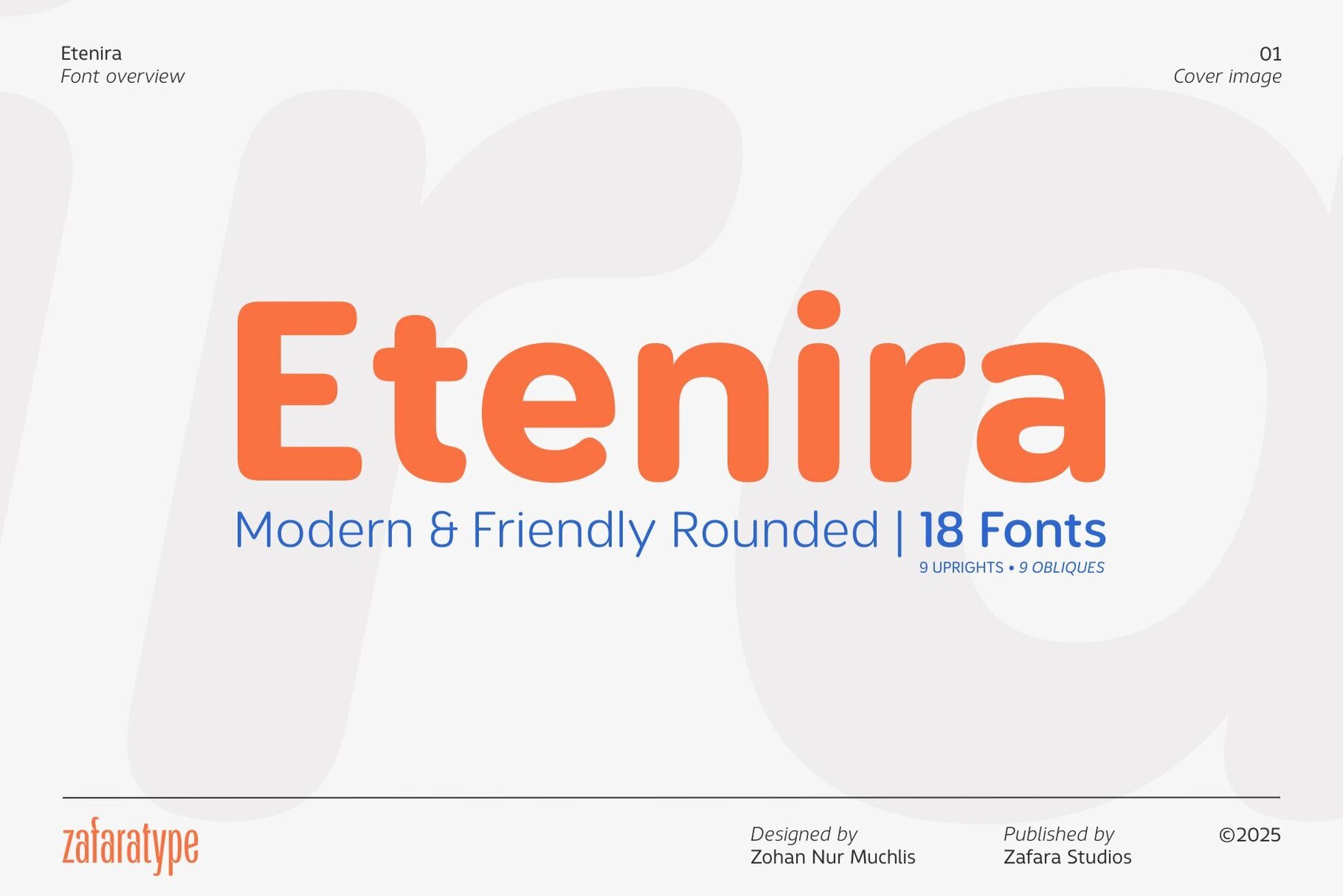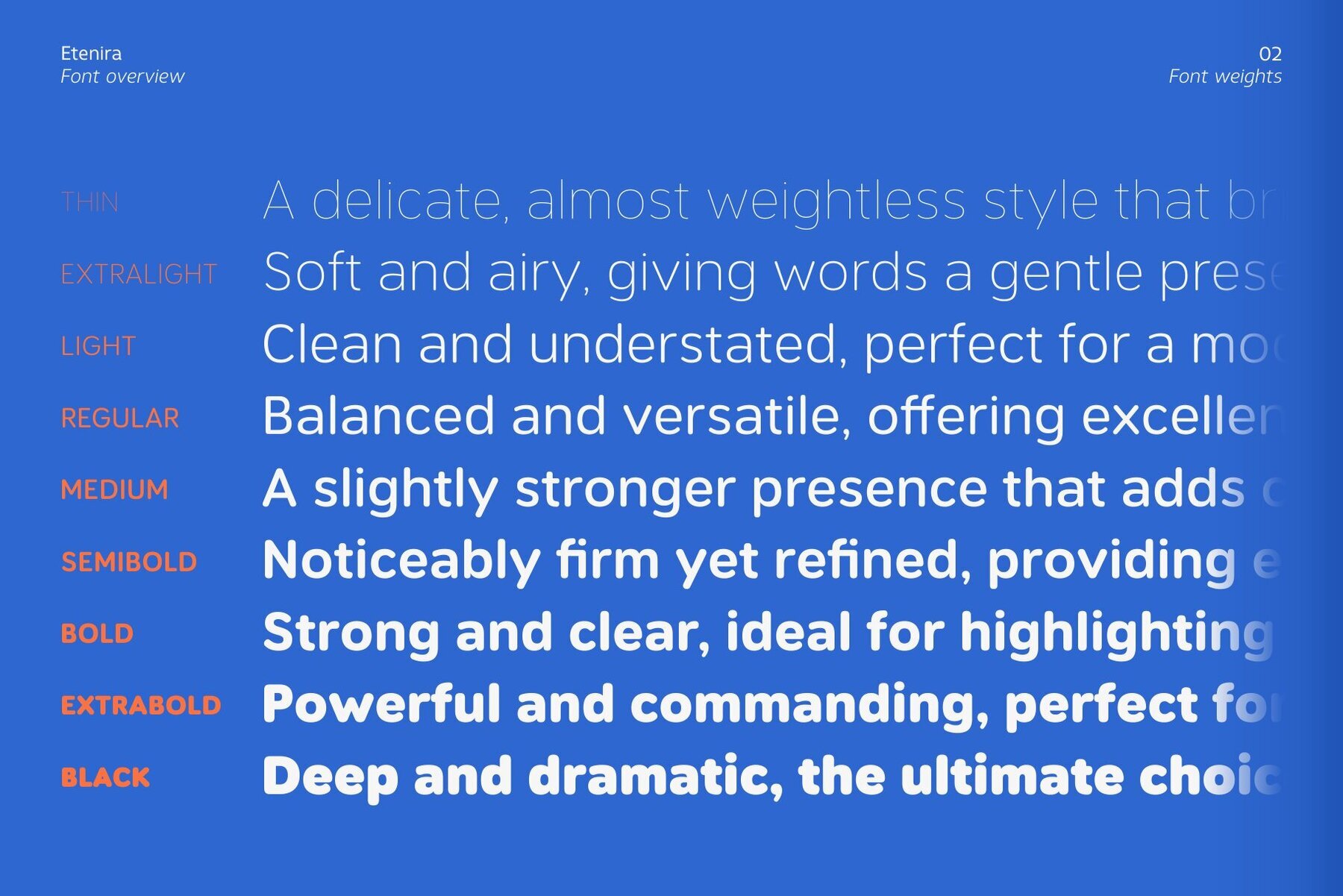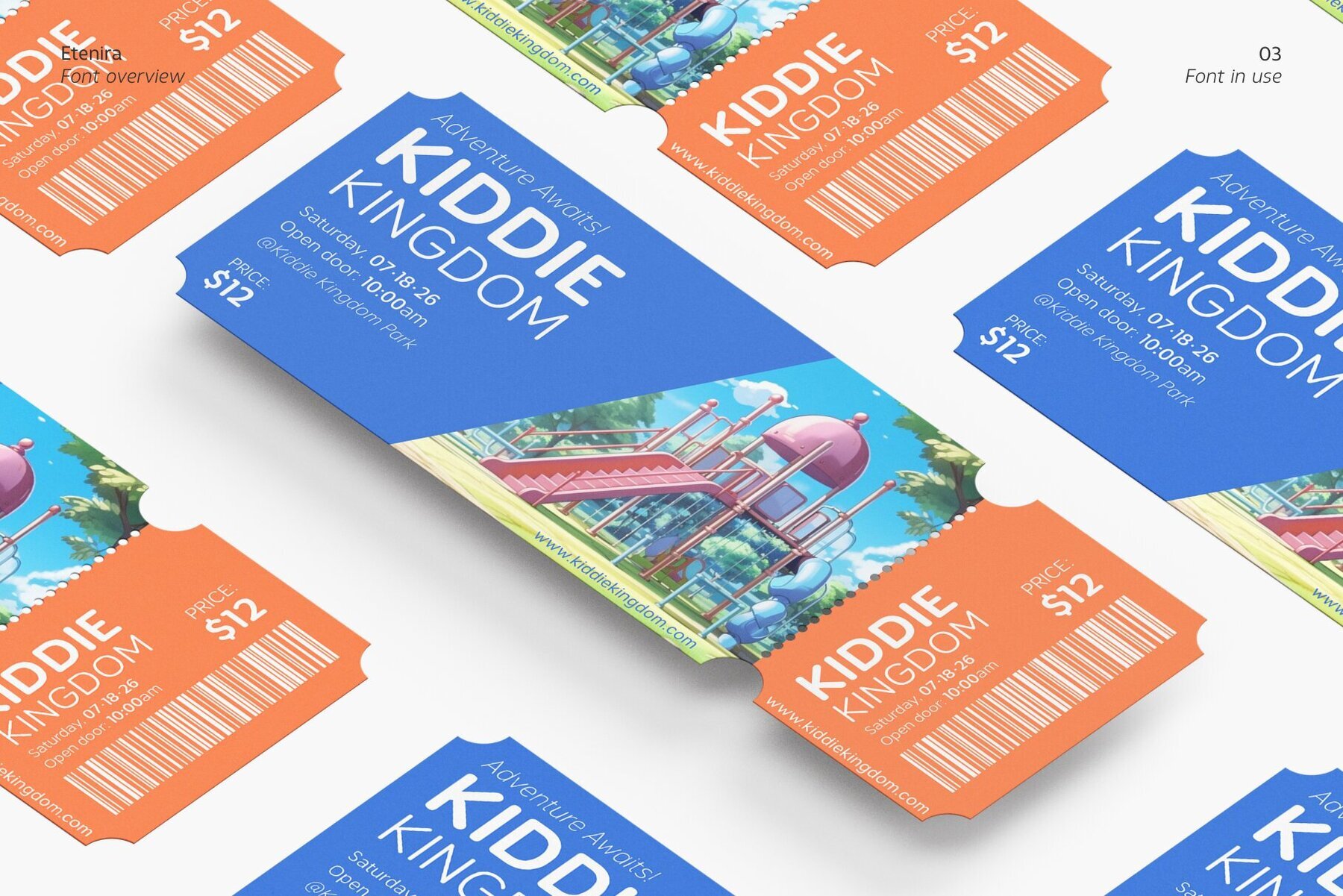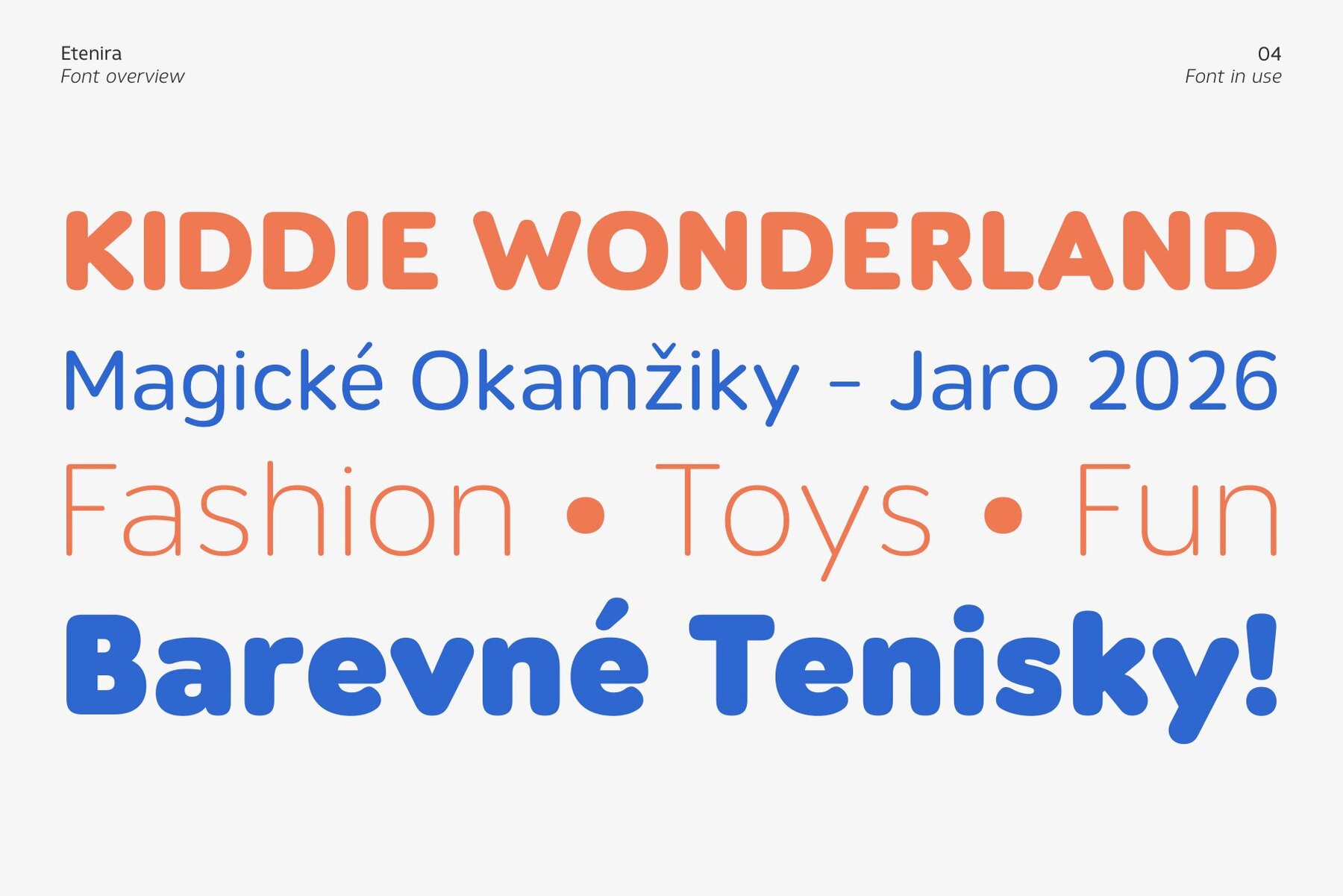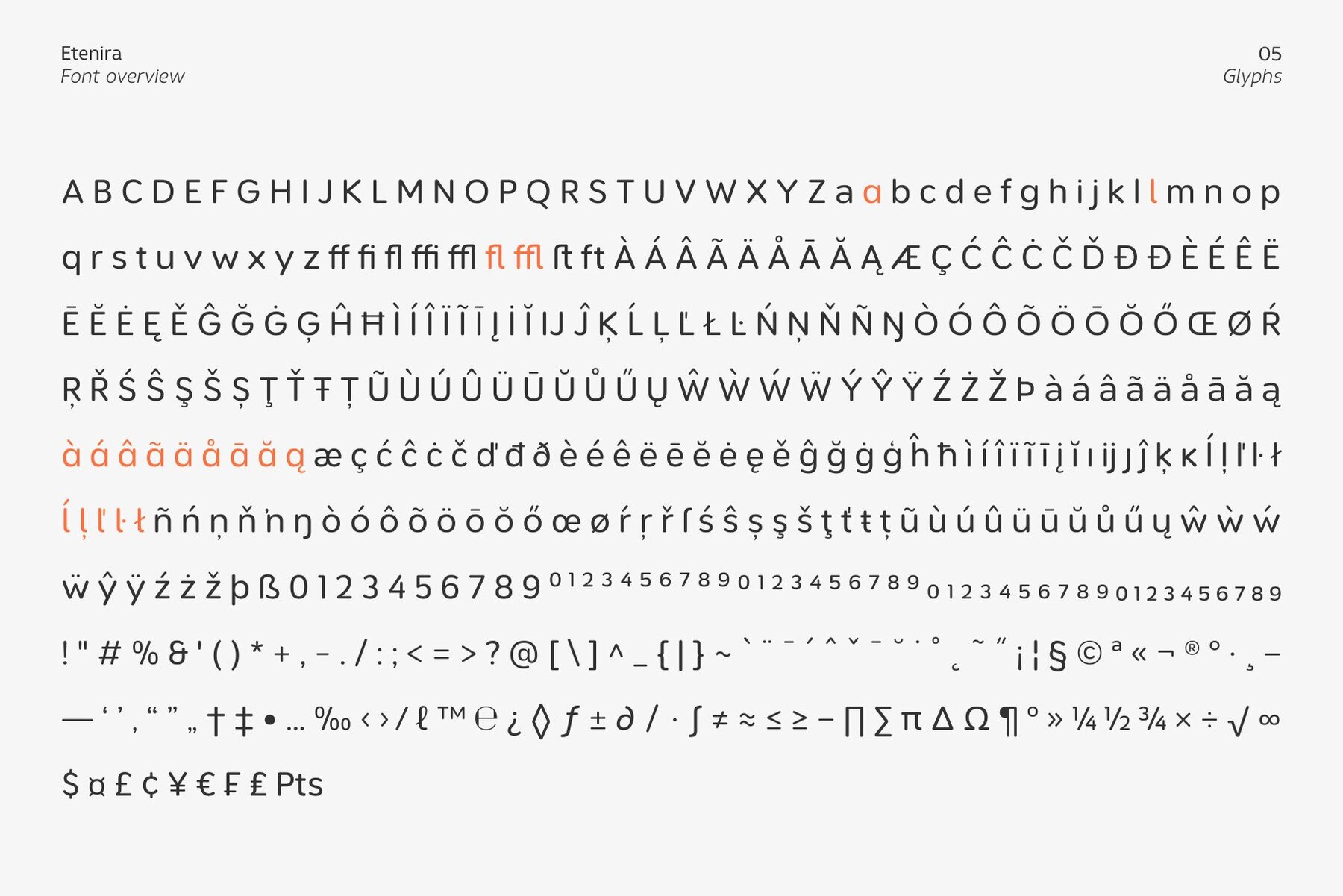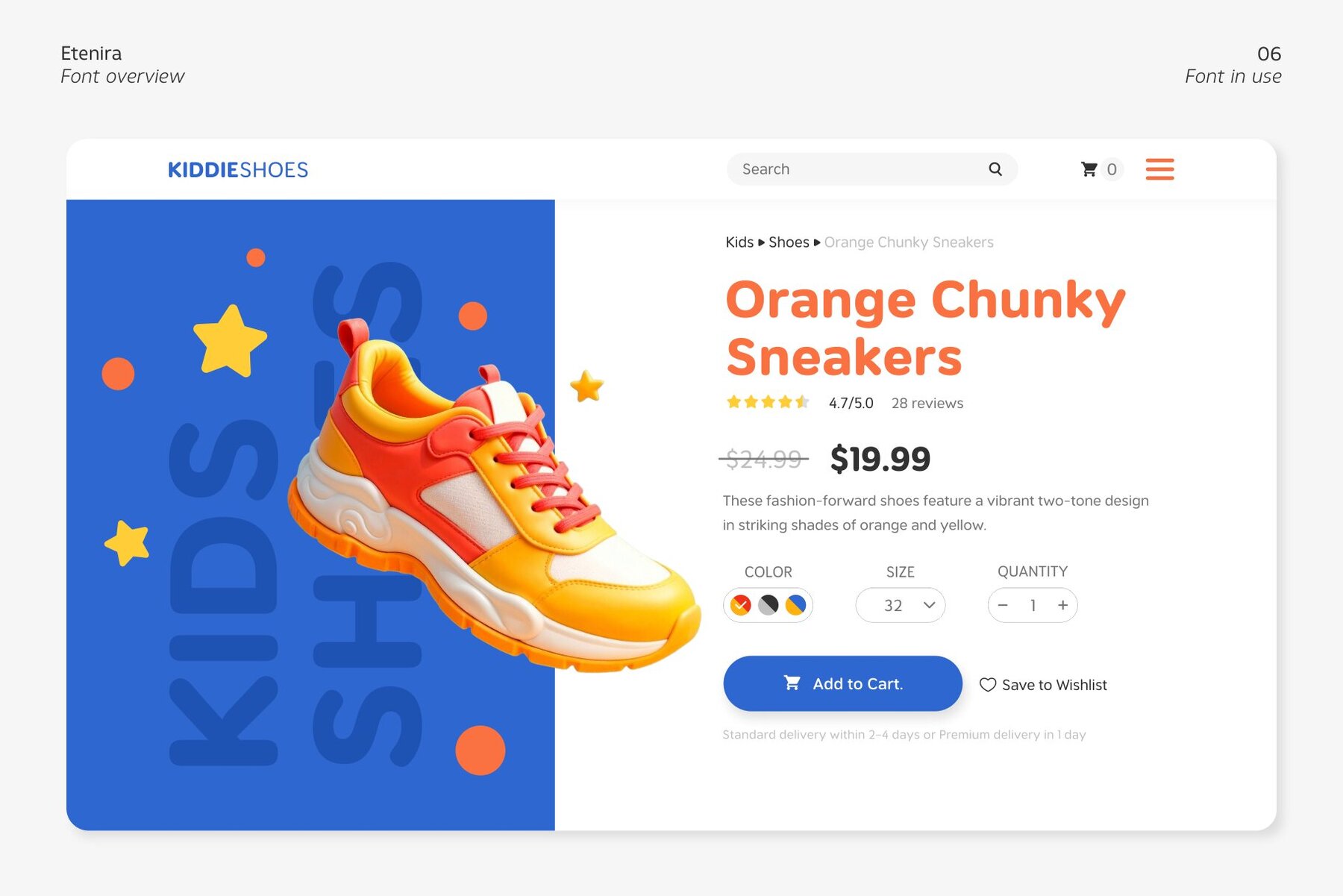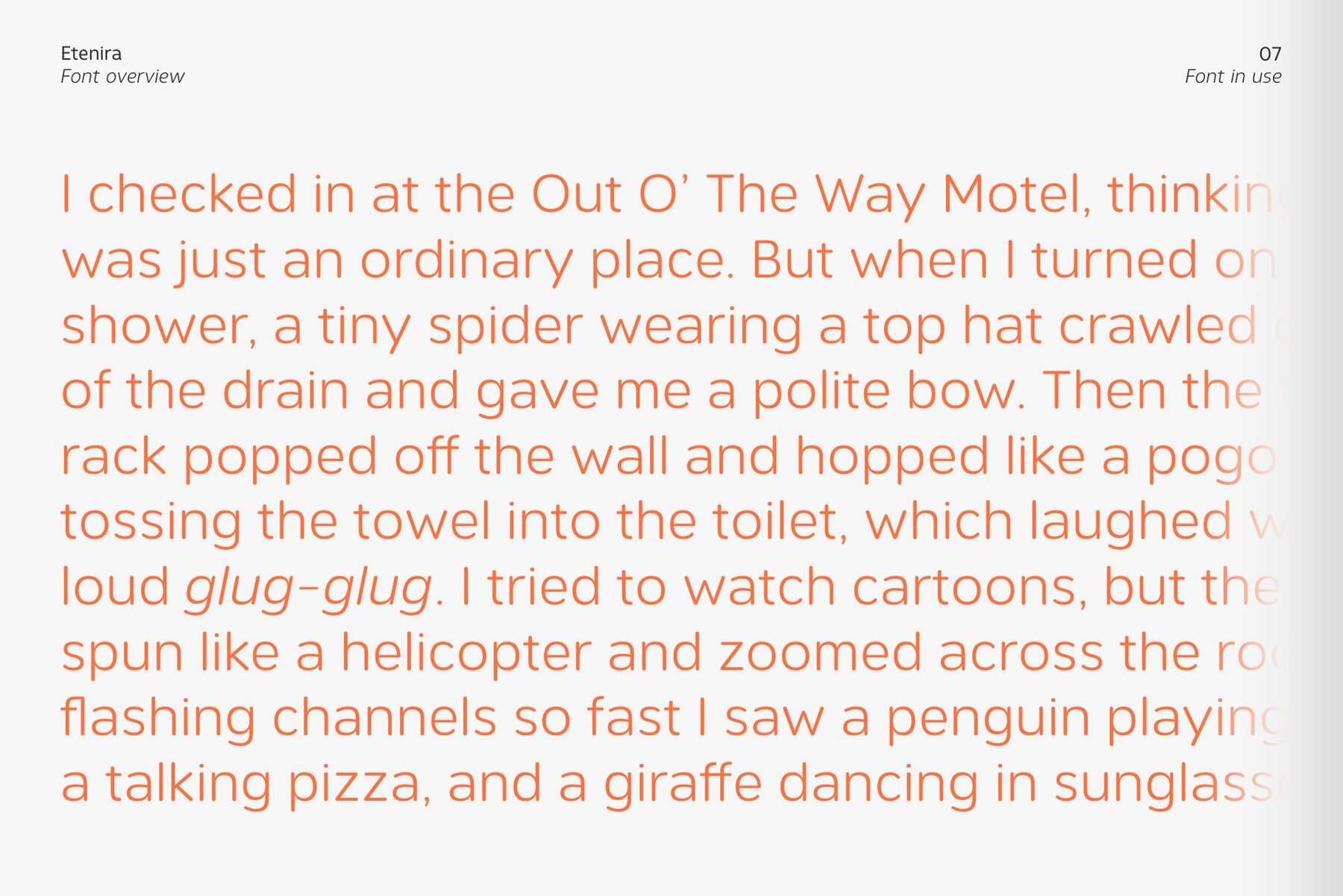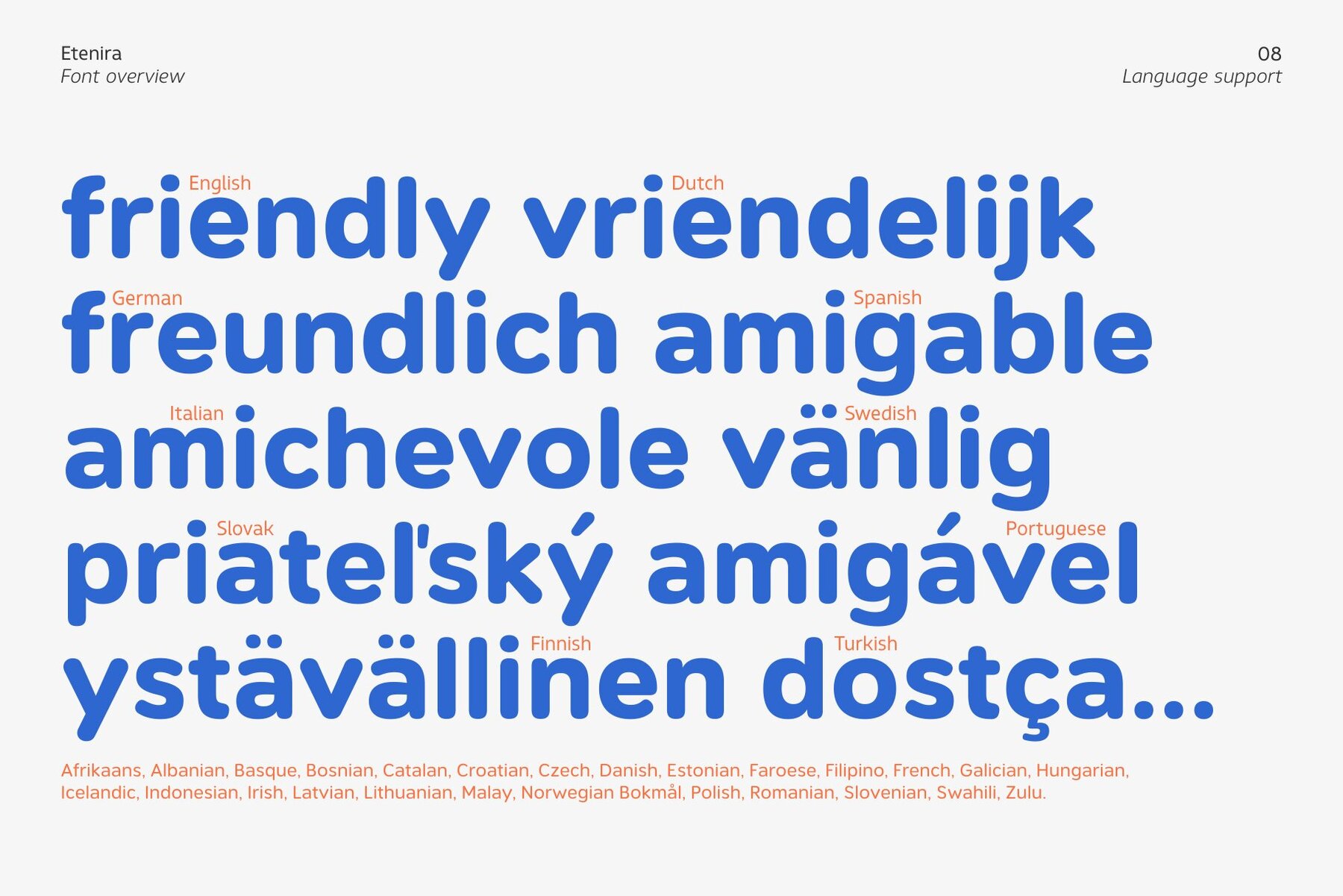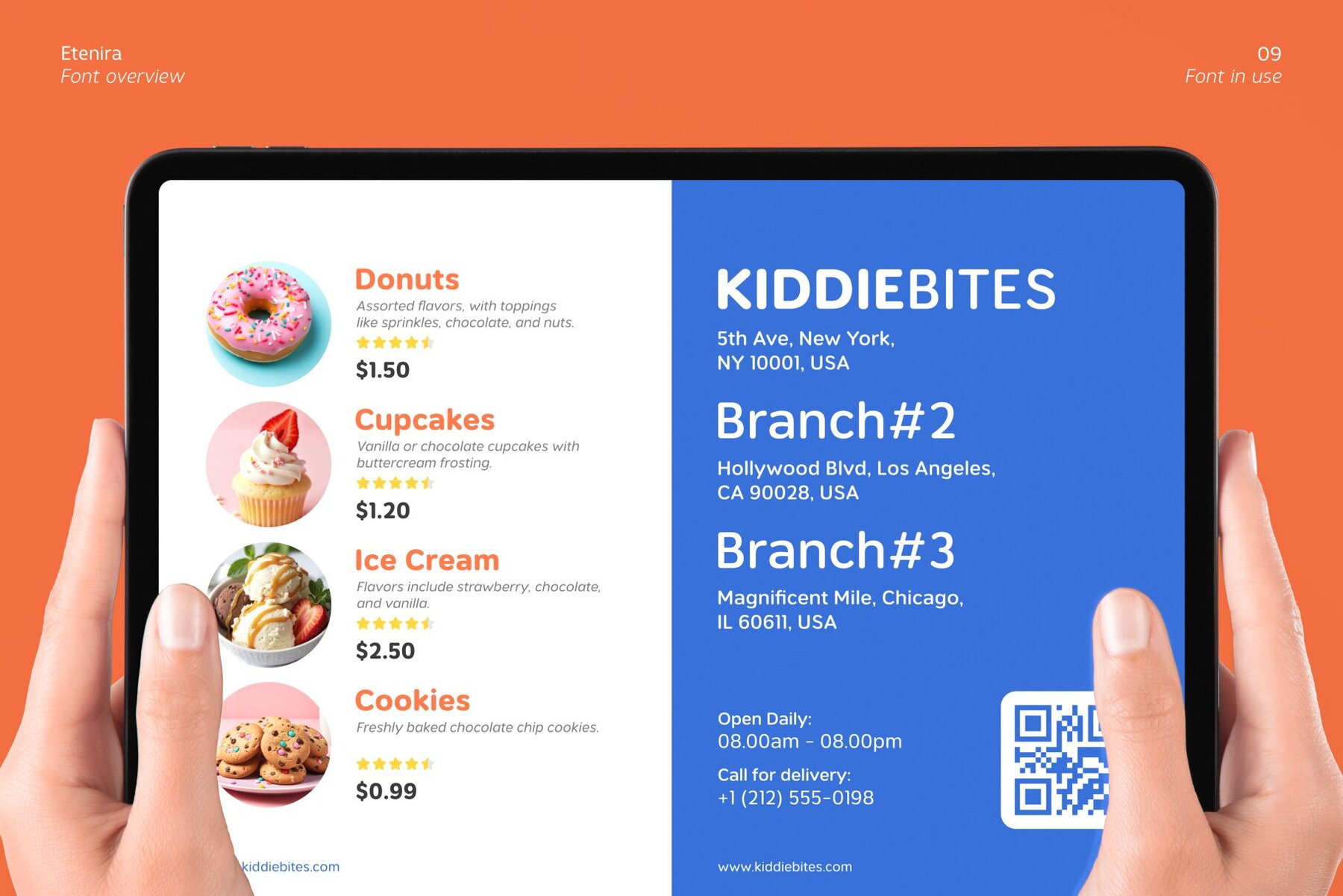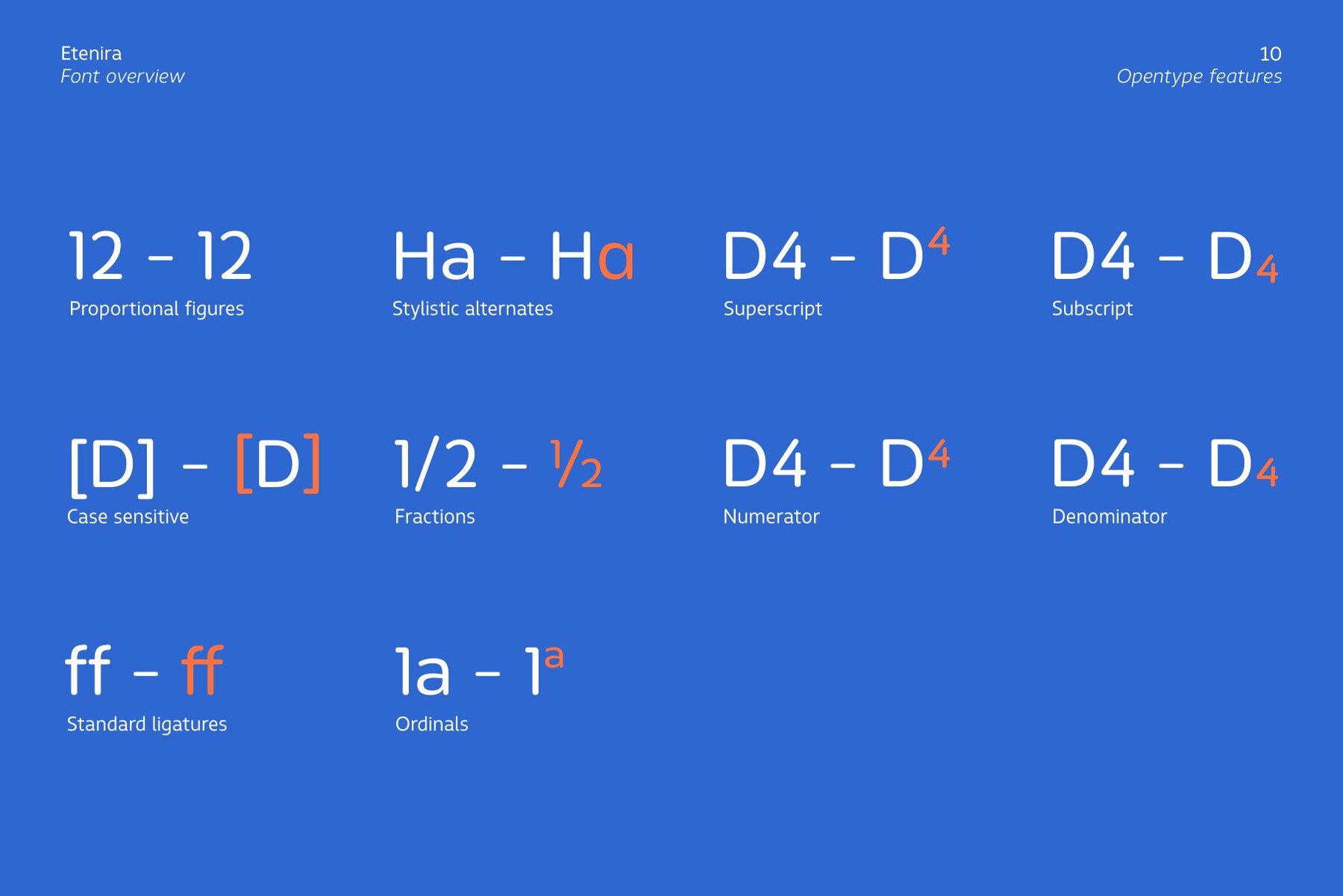
Etenira Font
Etenira offers a harmonious blend of soft curves and well-balanced proportions, bringing a sense of warmth and friendliness to an array of projects. Its clean and contemporary style ensures versatility, making it an ideal choice for branding, packaging, editorial design, and web interfaces. Etenira serves as more than just a font; it is a resource for crafting designs that are not only aesthetically pleasing but also imbued with comfort and authenticity. With its extensive weight system and broad language support, Etenira stands as a dependable and indispensable addition to any designer’s toolkit.Etenira: A Rounded Typeface for Modern Design